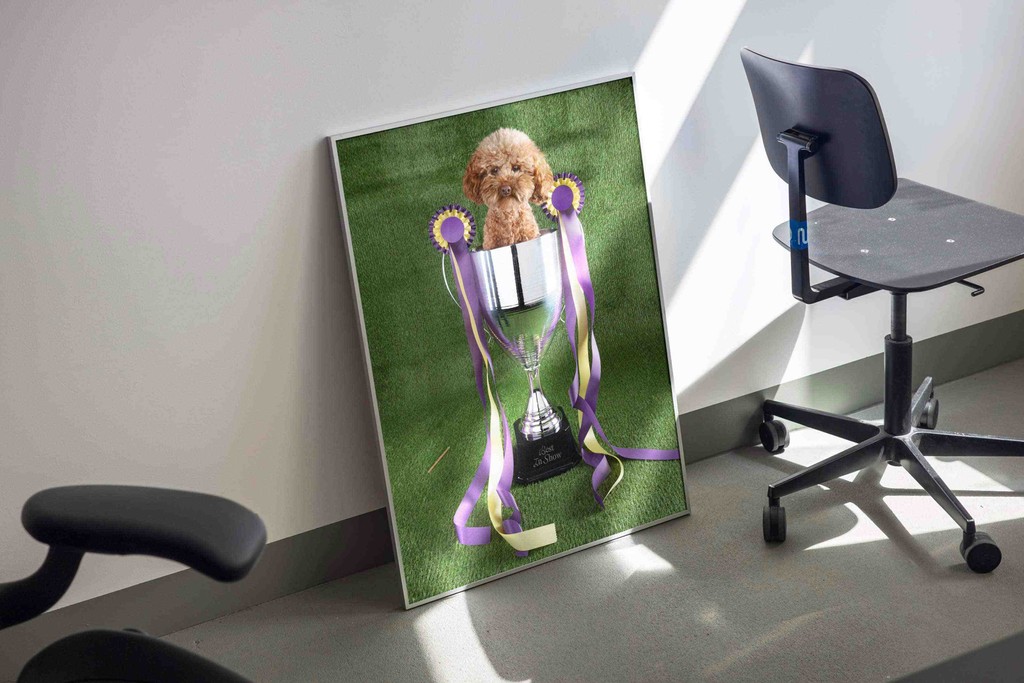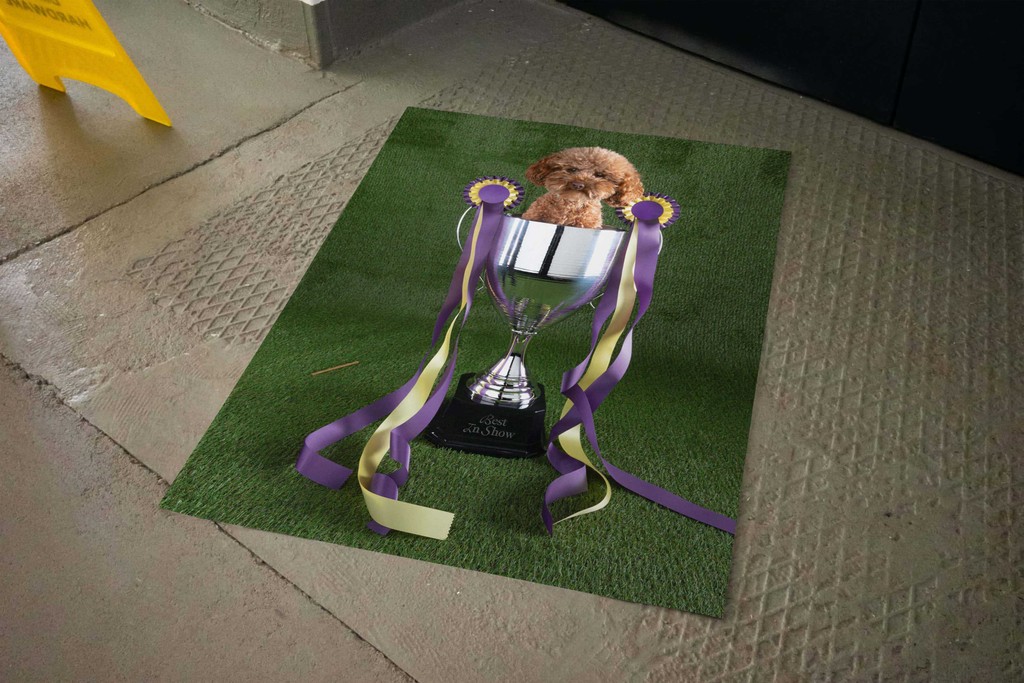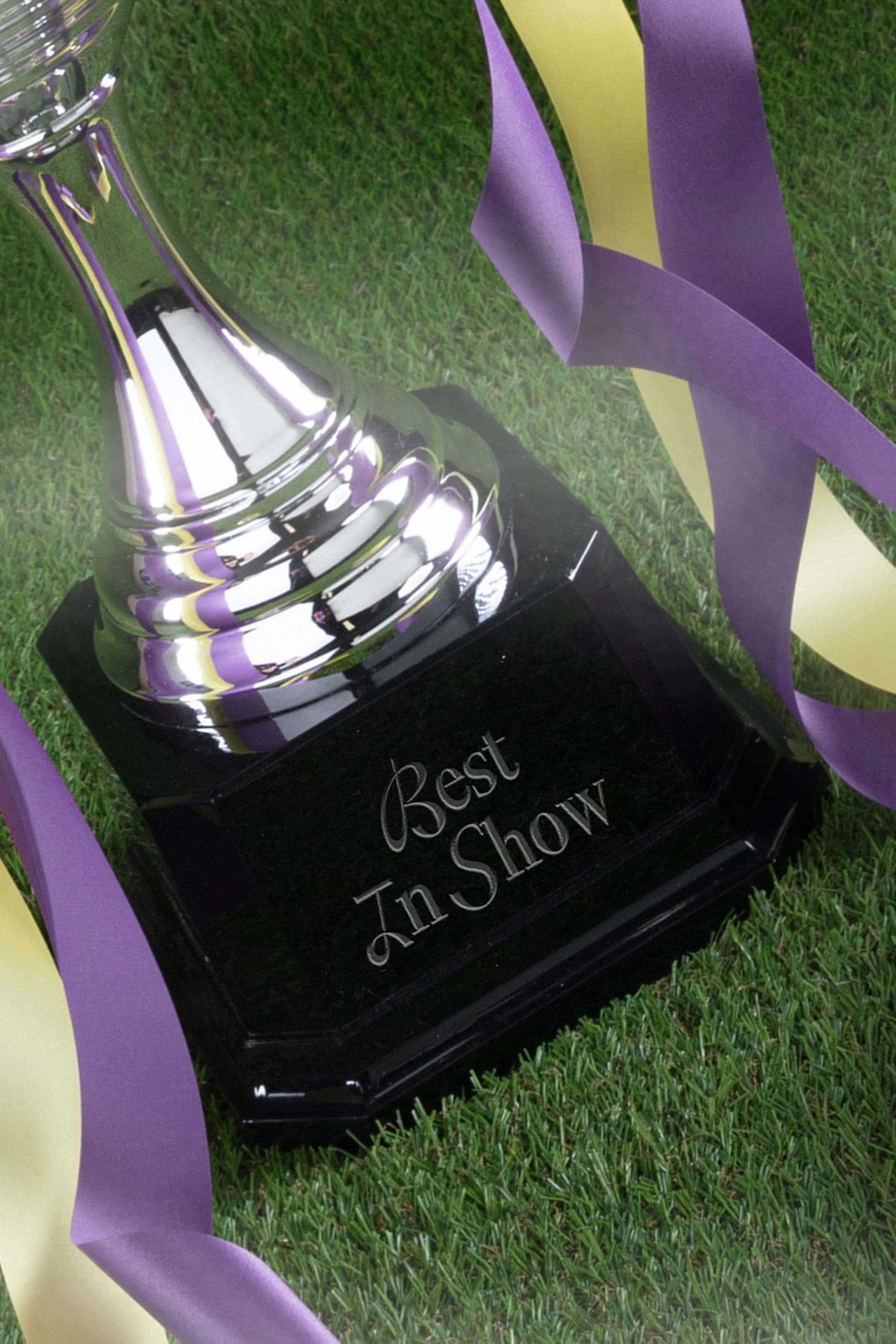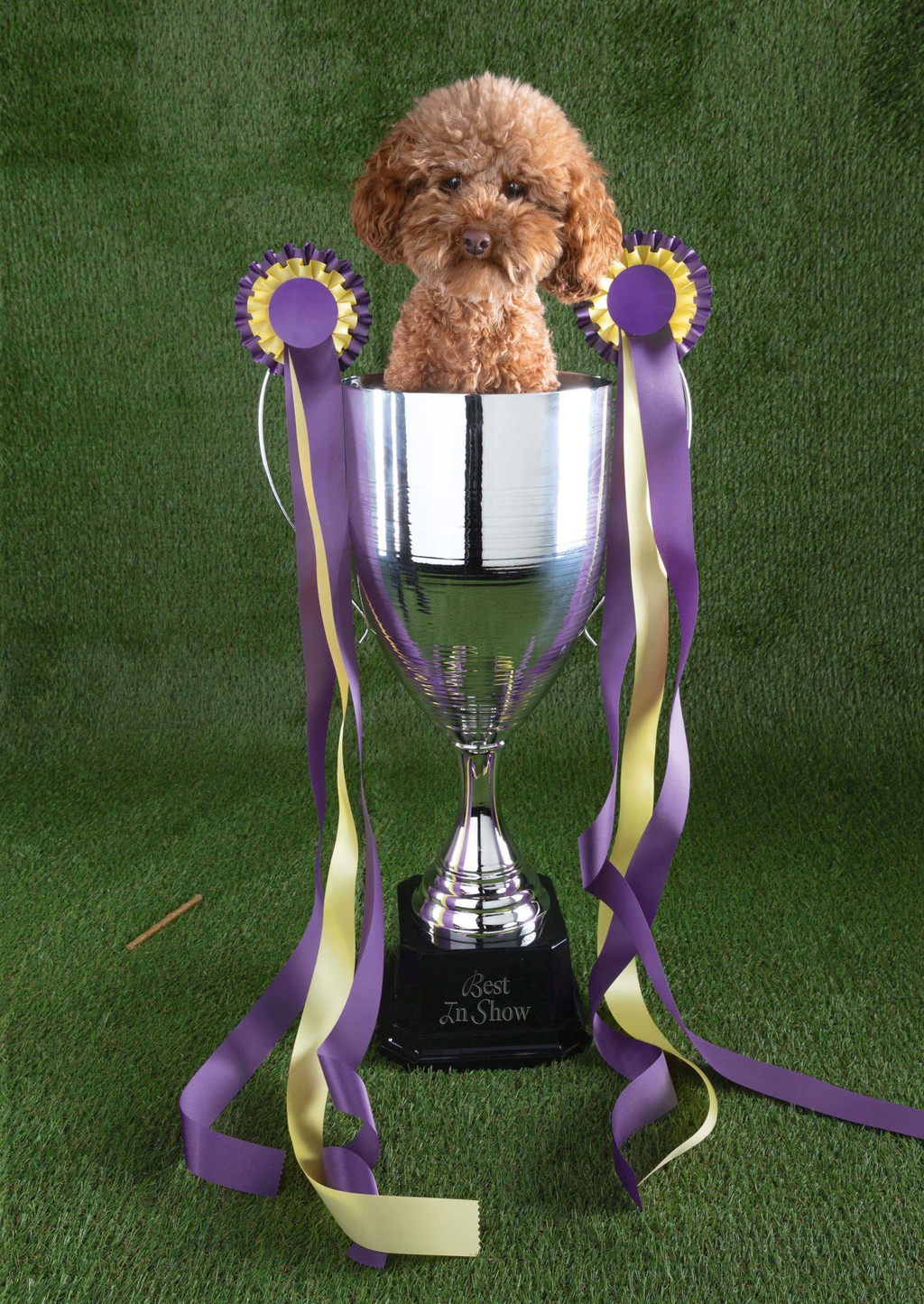
Gramercy Poster
Poster for Gramrecy, a beautiful serif in three optical sizes with uppercase swashes. A true winner. A1 (59.5 x 84.1 cm), CMYK offset printed by Druckhaus Sportflieger in Berlin.
Typeface: Dinamo (Robert Janes)
Design: Mathias Lempart and Sascia Reibel (Shortnotice Studio)